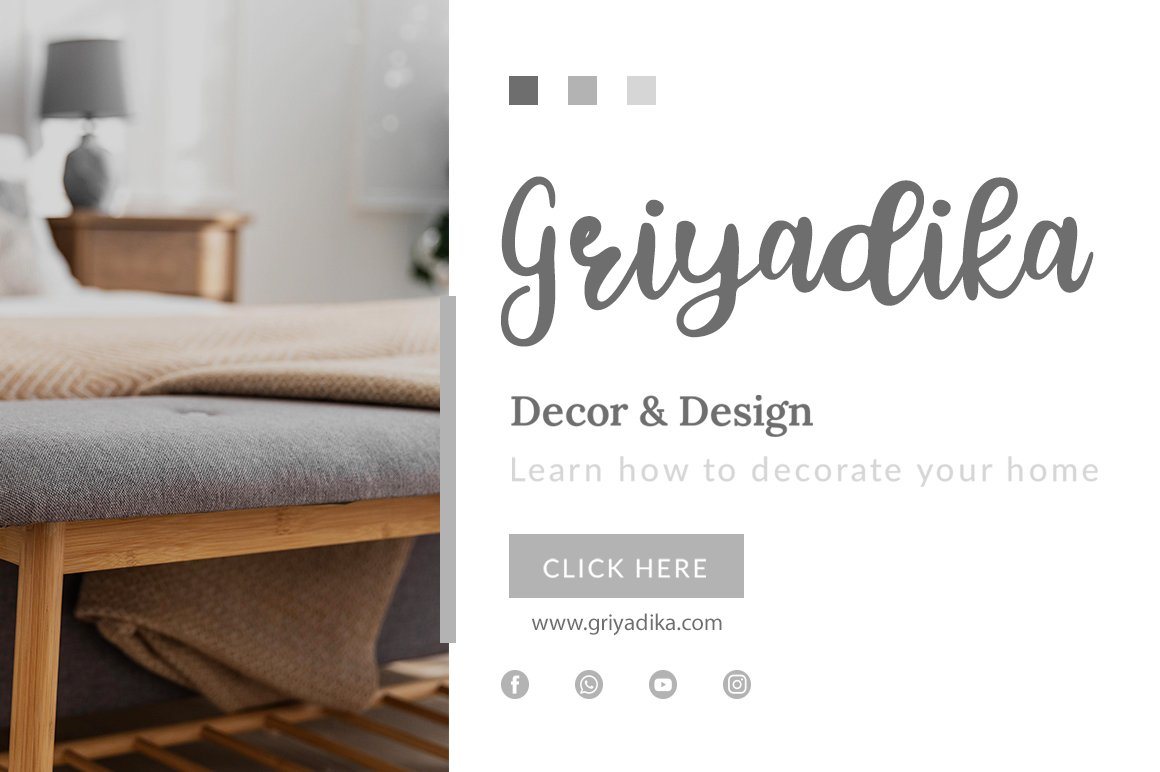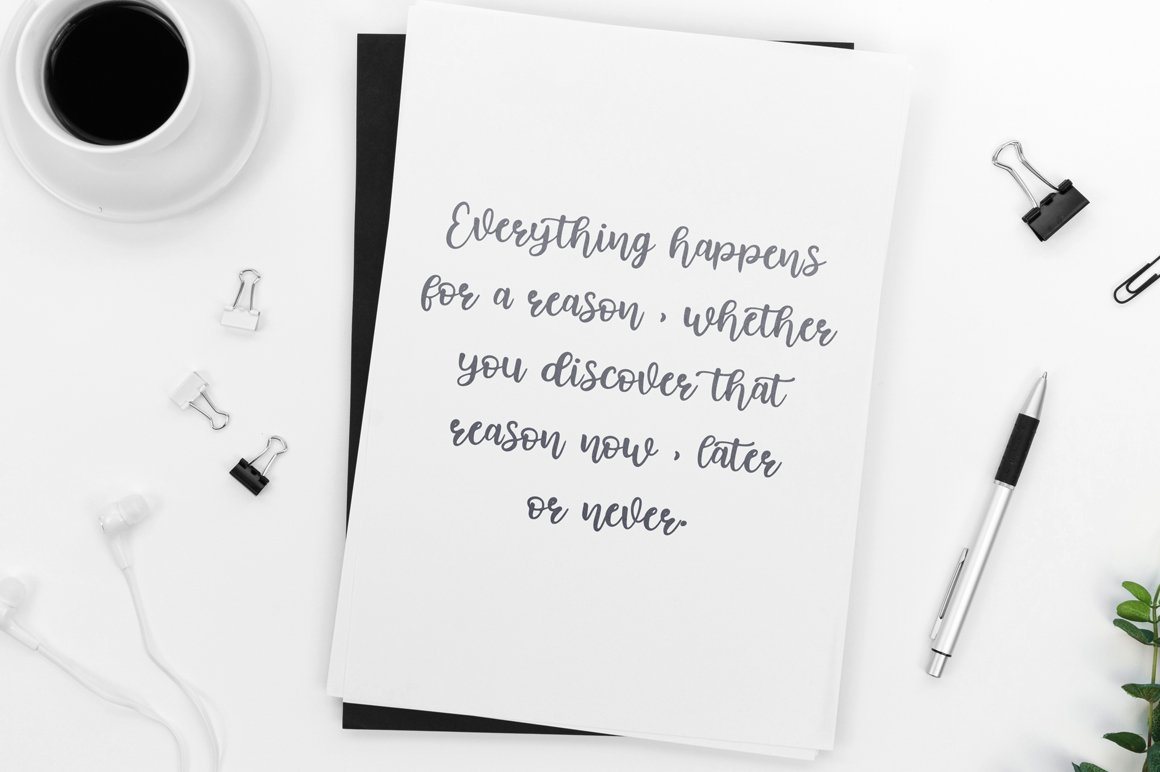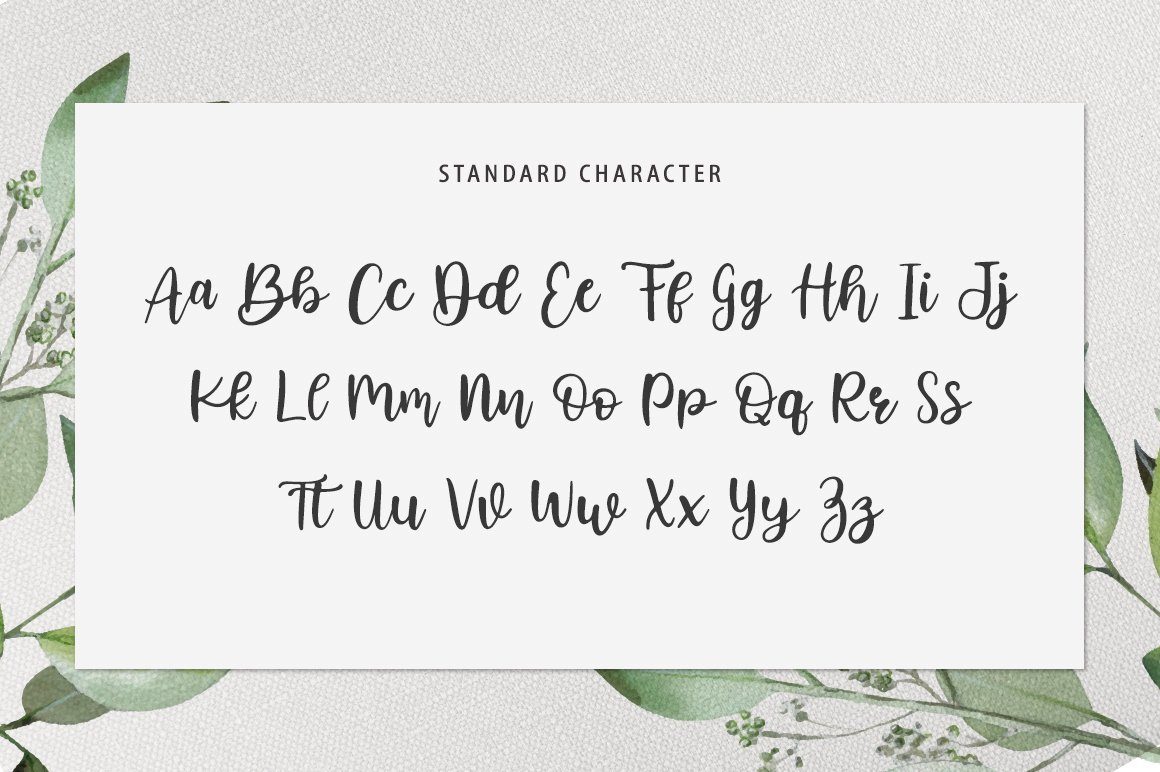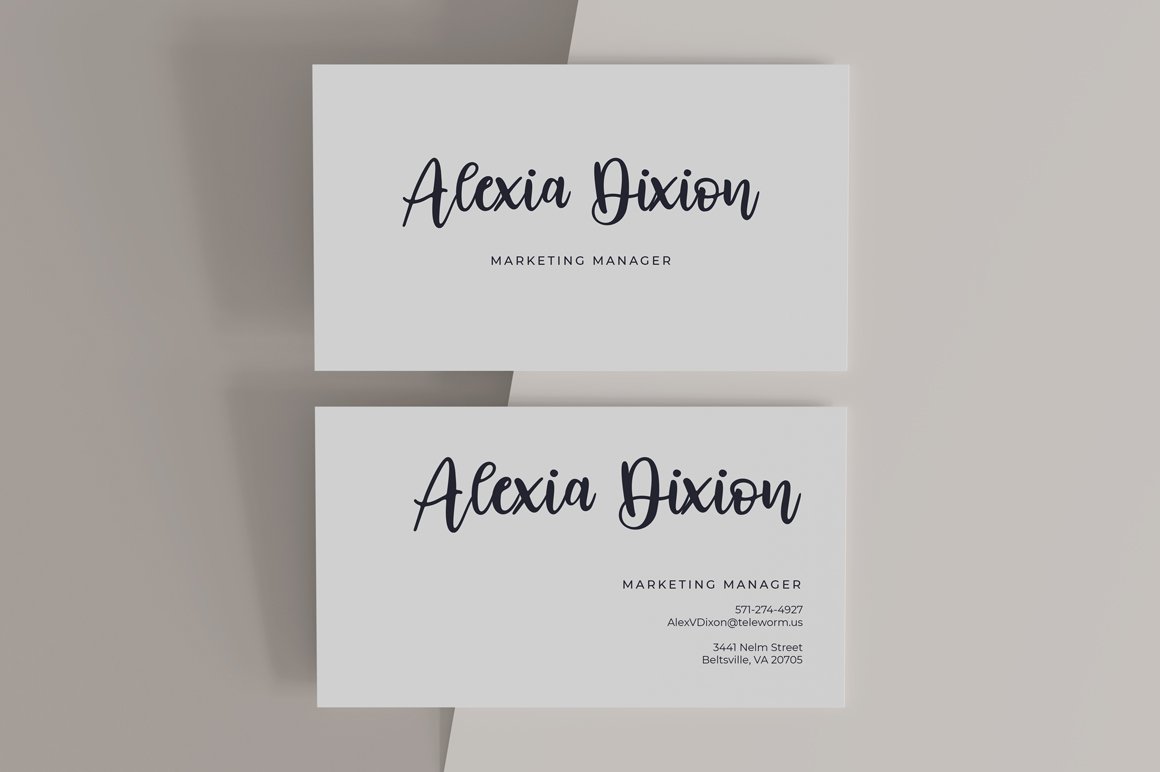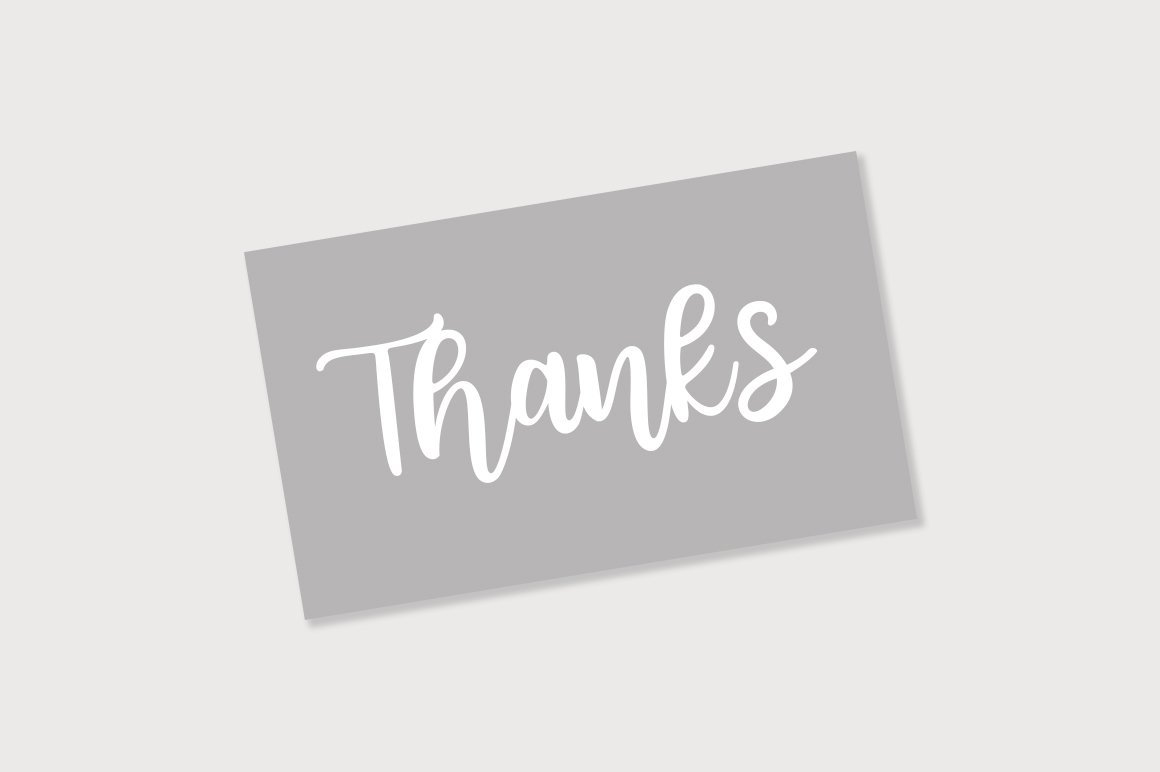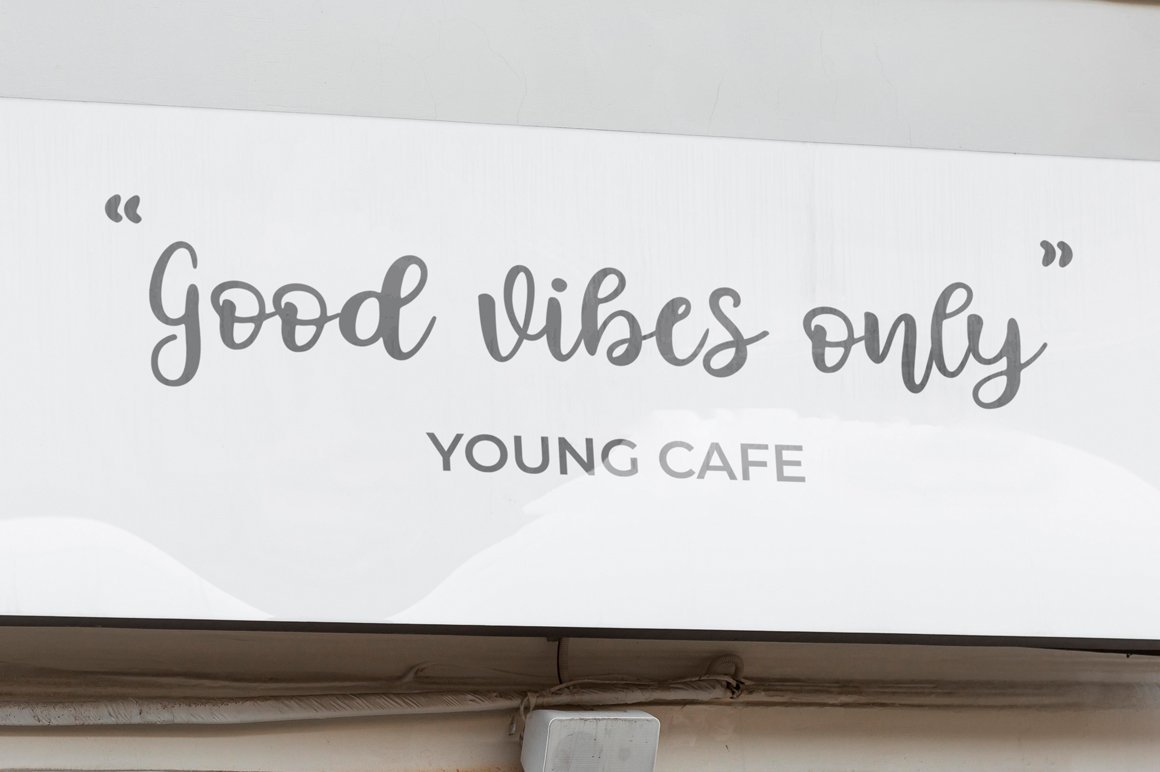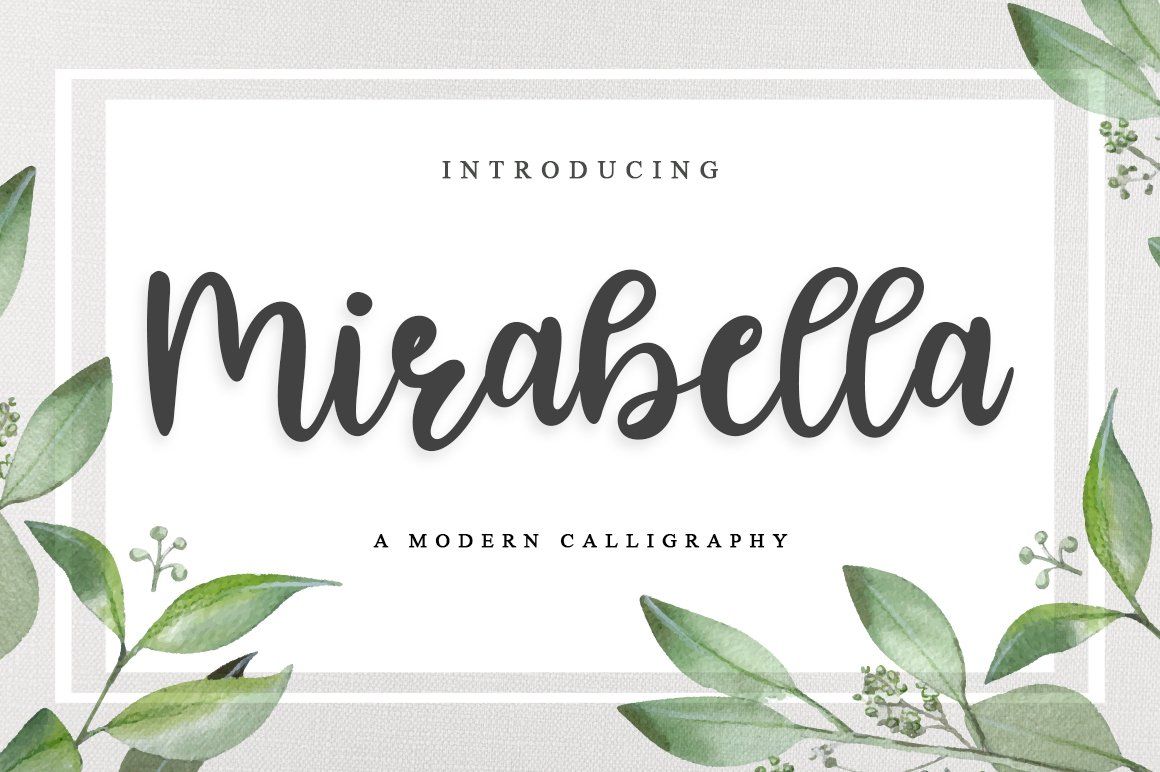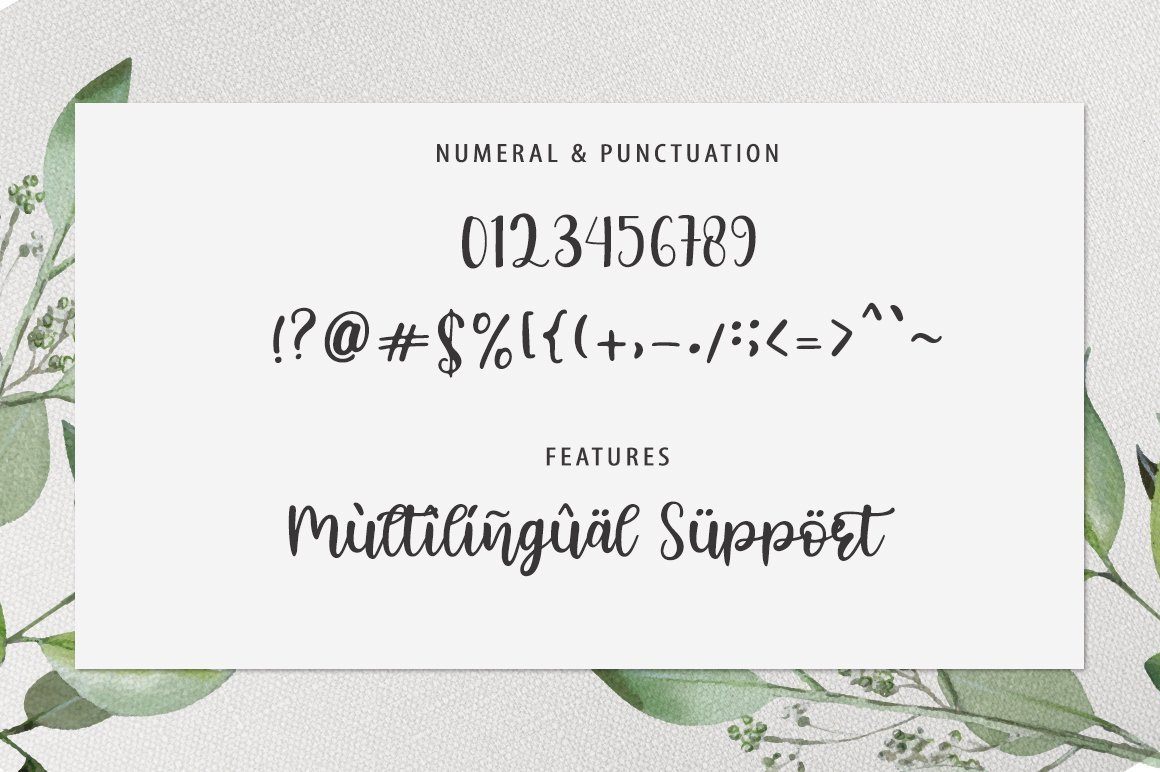
Mirabella
About Mirabella
The Mirabella is a stylish script font. It has a modern and classy look which can be used to add an extraordinary touch to your designs. Can be used for logos, branding, invitations, stationery, wedding designs, social media, advertisements, labels, watermarks and more! What’s Included : Mirabella OTF Mirabella TTF Numeral and Punctuation International Language Works on PC & Mac Simple installations Accessible in the Adobe Illustrator, Adobe Photoshop, Adobe InDesign, even works on Microsoft Word. Thank you for your purchase! Hope you enjoy with our font